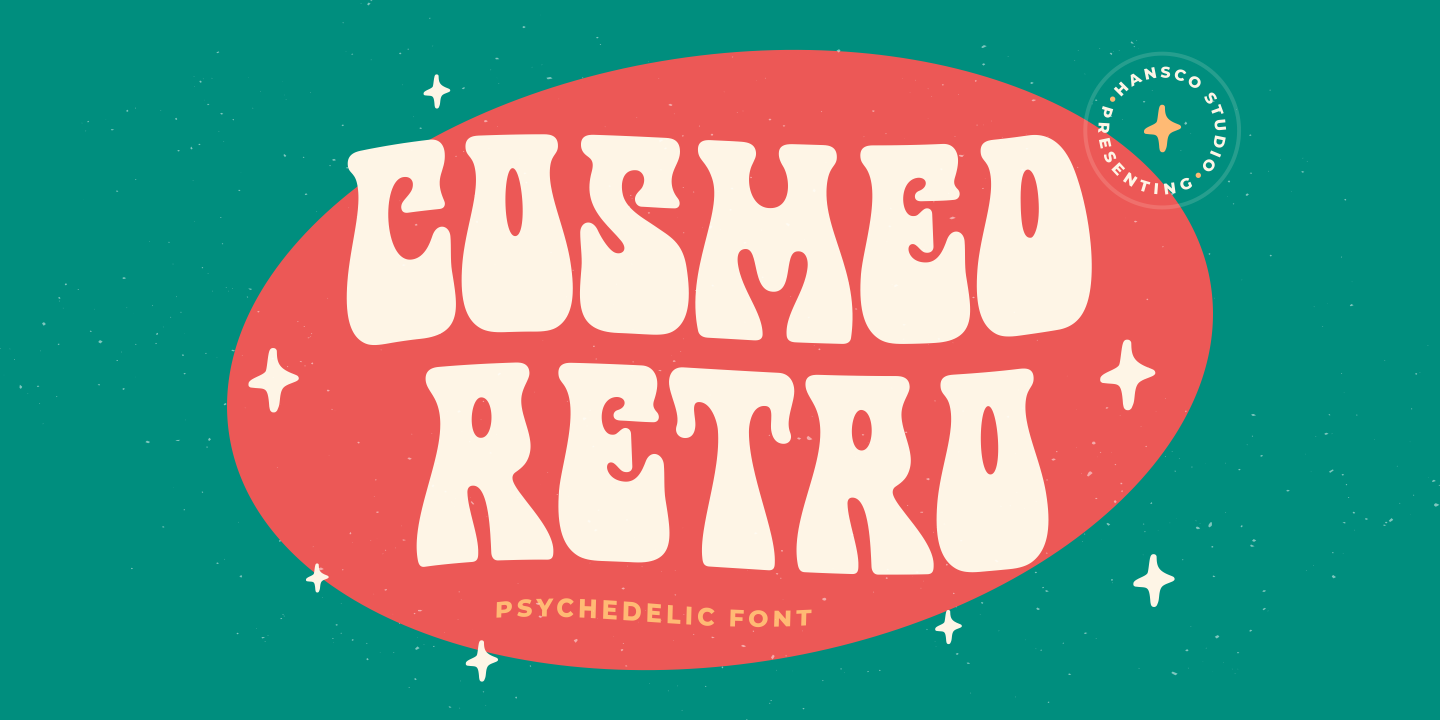
Step back in time with bold style using Cosmed Retro Font Free Download. This nostalgic display typeface features thick curves, vintage-inspired letterforms, and playful rhythm—perfect for retro branding, 70s and 80s themed posters, product packaging, apparel design, and social media graphics. Cosmed Retro Font Free Download brings a lively, throwback aesthetic that instantly captures attention and charm.
The bold character of Cosmed Retro Font makes it ideal for logos, headlines, and any creative work that needs a fun, eye-catching personality. Whether you're designing a vintage label, a funky music event flyer, or a retro-inspired website, this font delivers warmth, creativity, and unmistakable flair.